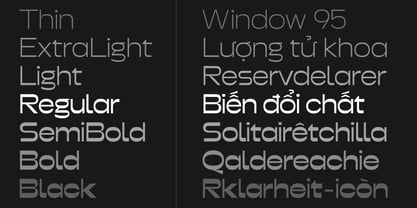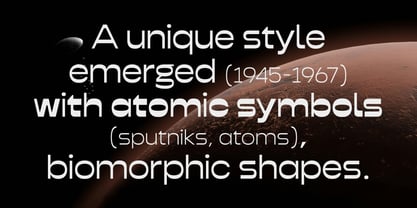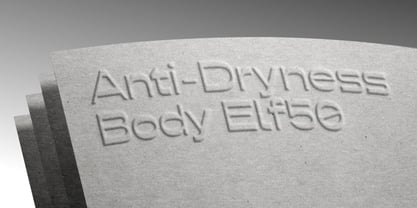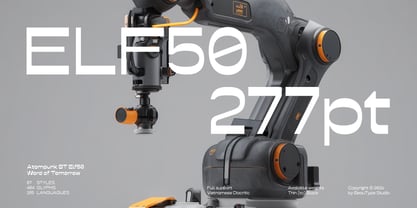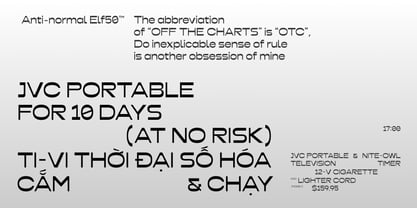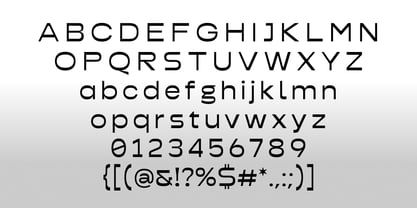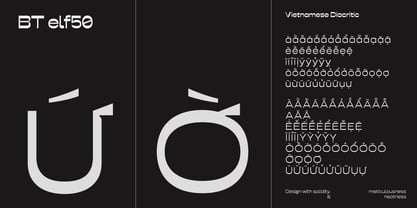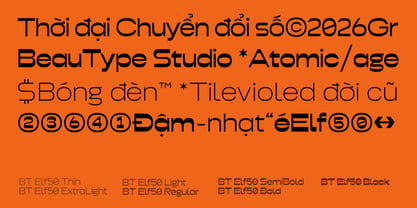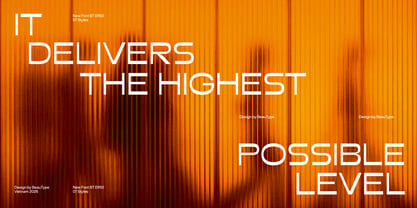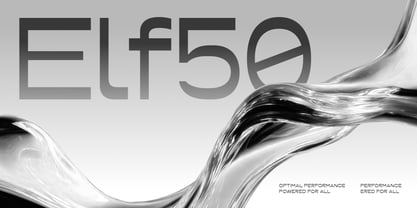
BT Elf50
Die Schriftfamilie BT Elf50 wurde von Duong Nguyen entworfen und von BeauType veröffentlicht. BT Elf50 enthält 7 Stile und Familienpaketoptionen. Mehr über diese Familie
BT Elf50 is a reverse-contrast typeface with a futuristic and inspiring character. It has been carefully improved with a fresh approach to contrast that reflects an understanding of strong technological trends and ongoing design evolution. The various styles in the BT Elf50 family range from Thin, with a monoline appearance, to Black, a more traditional reverse-contrast form, illustrating continuous change and unexpected shifts in design expression. Although it is based on geometric shapes, BT Elf50 is not overly sharp or rigid. Its forms include subtle refinements in linking stroke, smooth rounded corners, and gentle oval shapes, giving the typeface a more approachable and refined feel. These design choices bring a sense of motion and softness while preserving a modern structural integrity. Thanks to its flexibility and distinctive contrast characteristics, BT Elf50 works well across a wide variety of projects. It can be used effectively in branding, editorial layouts, headlines, and display typography.